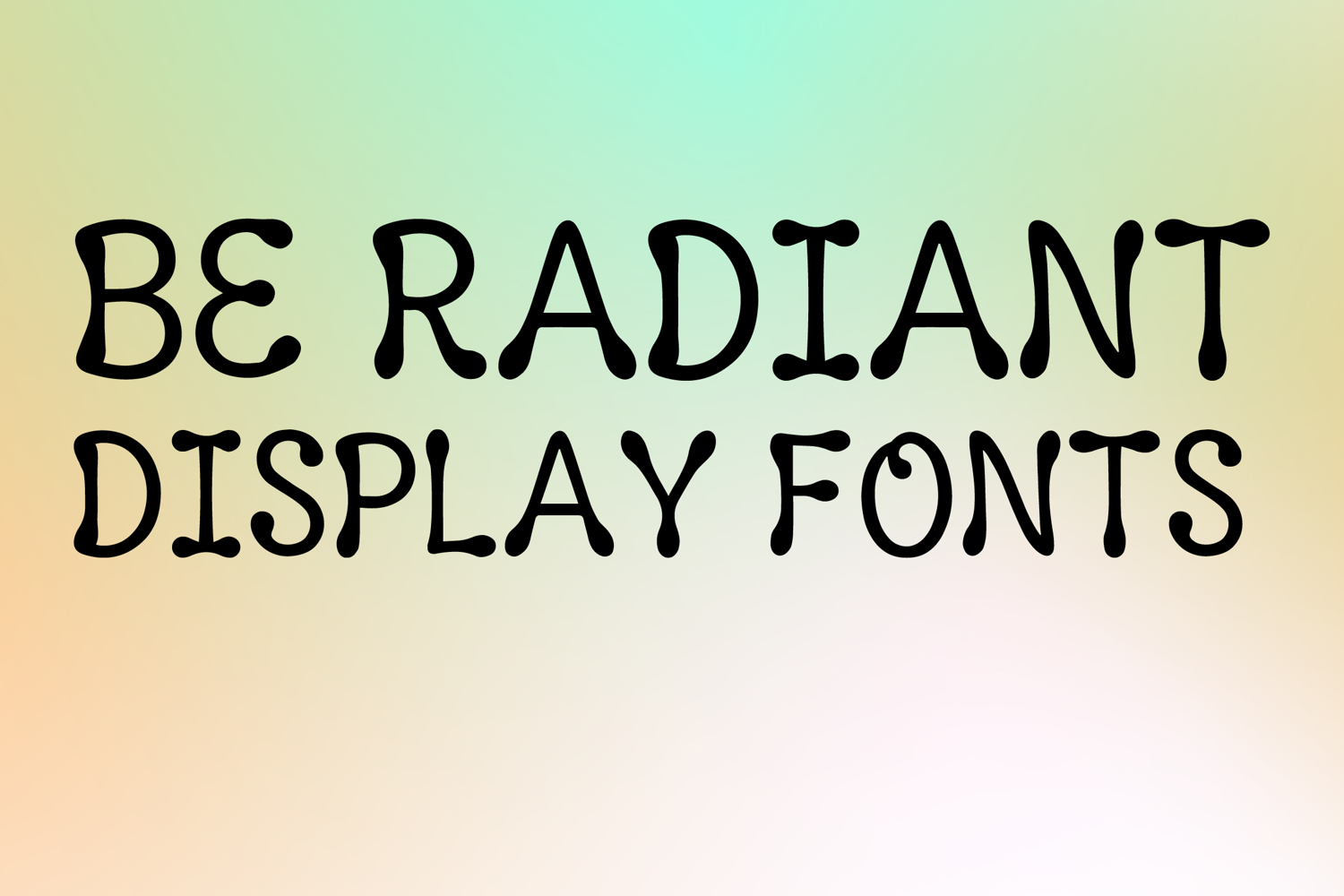
BE RADIANT
BE RADIANT is a whimsical display font with a charming handcrafted style and soft decorative character. Its uppercase letterforms feature rounded terminals, playful curves, and slightly irregular details that create a warm, cheerful, and eye-catching look. Designed with uppercase letters A–Z and numbers 0–9, BE RADIANT is perfect for branding, posters, packaging, invitations, logos, social media graphics, and creative projects that need a joyful and memorable statement.